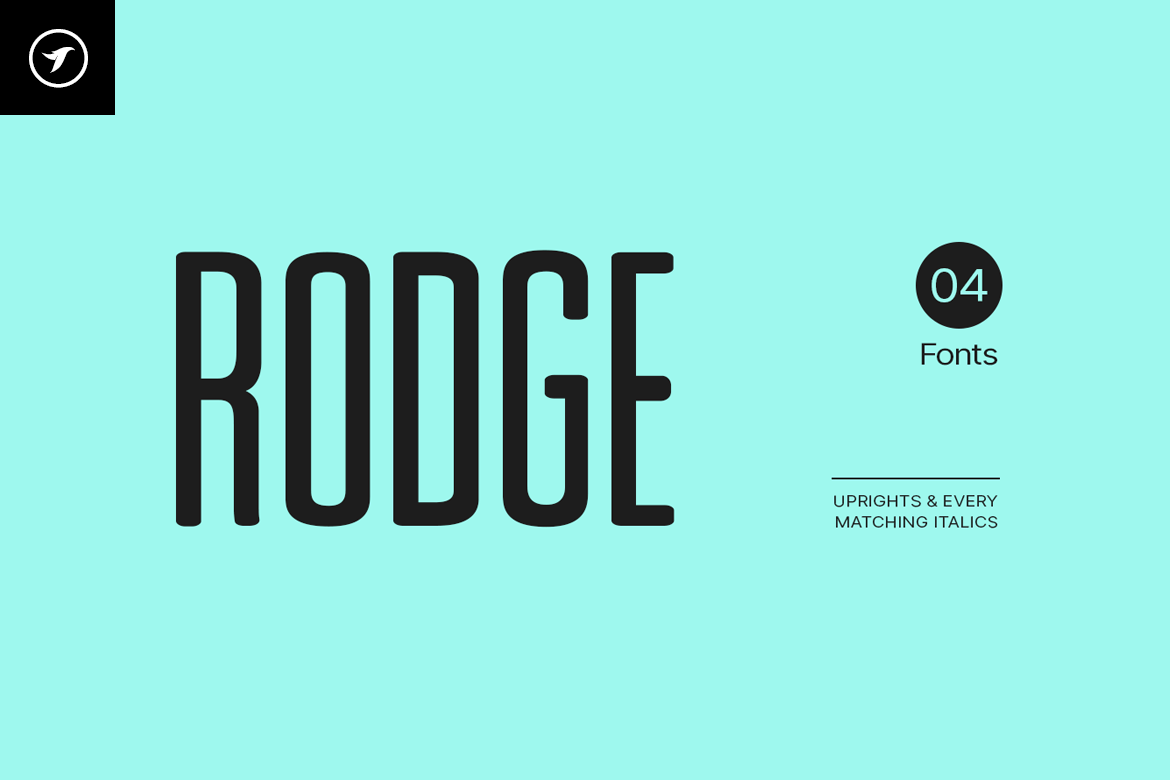
RODGE - Unique Display Headline Font
Rodge is a unique display typeface perfect for headlines, big text, branding, logotypes & graphic design purposes such as posters, flyers and advertisements. This all-caps font can be an excellent choice for creating outstanding logos, promotional content, and marketing presentations that can bring uniqueness and freshness at its level best.
The typeface comes with OpenType Stylistic Alternatives feature giving you the option to add some unique characters. Please see the examples shown above to get an idea of the capability of this typeface.
Rodge comes with extended language support including Western European, Central European, and South-Eastern European character sets (total of 238 glyphs).
Typeface designed by Designova.